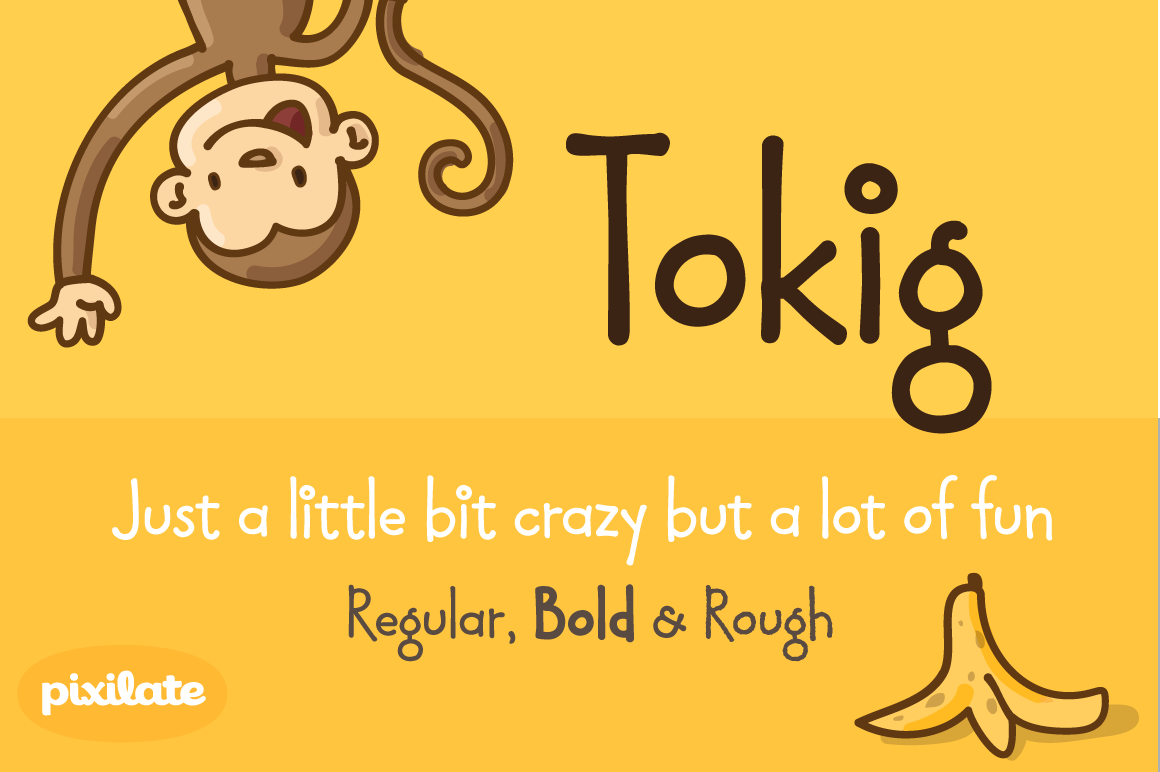
Tokig Px font family
- Refined spacing and kerning.
- Tweaked glyph outlines, should now be smoother and more natural-looking.
- Added wider language support, including vietnamese
- Added currency and other symbols